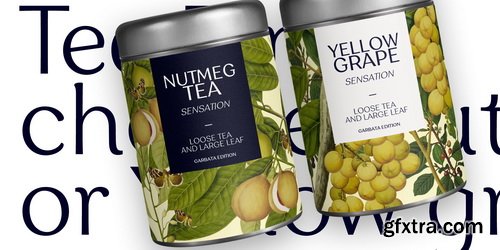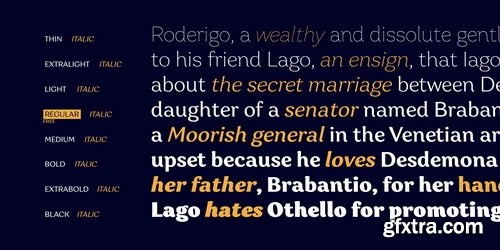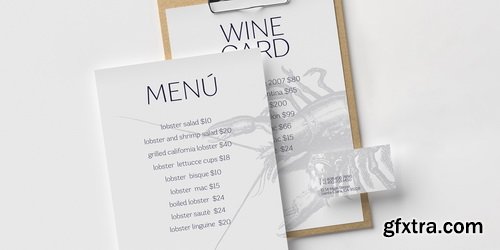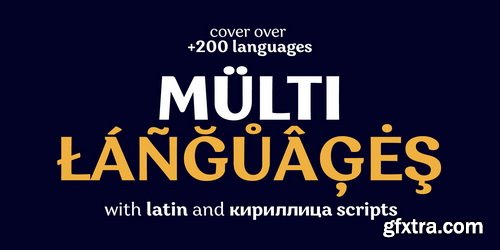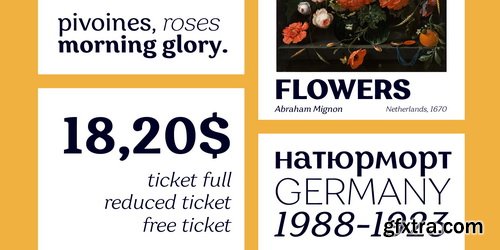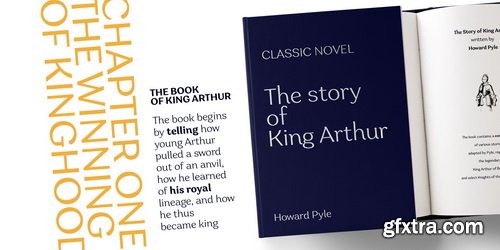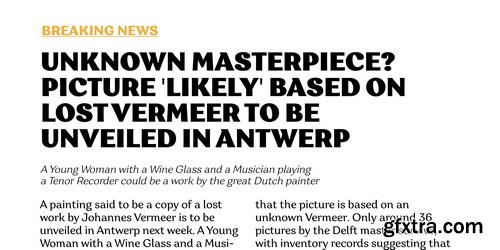
Garbata Font Family
Garbata is a strange mix, it was designed after many sketches searching an elegant but not serif font, particular and adaptable but at the same time with a classical feeling. The result is a surprise, Garbata can dialogue with the cover of an elegant book, a designer logo or a startup application. We have put inside this typeface our Italian heritage, with a renewed point of view.